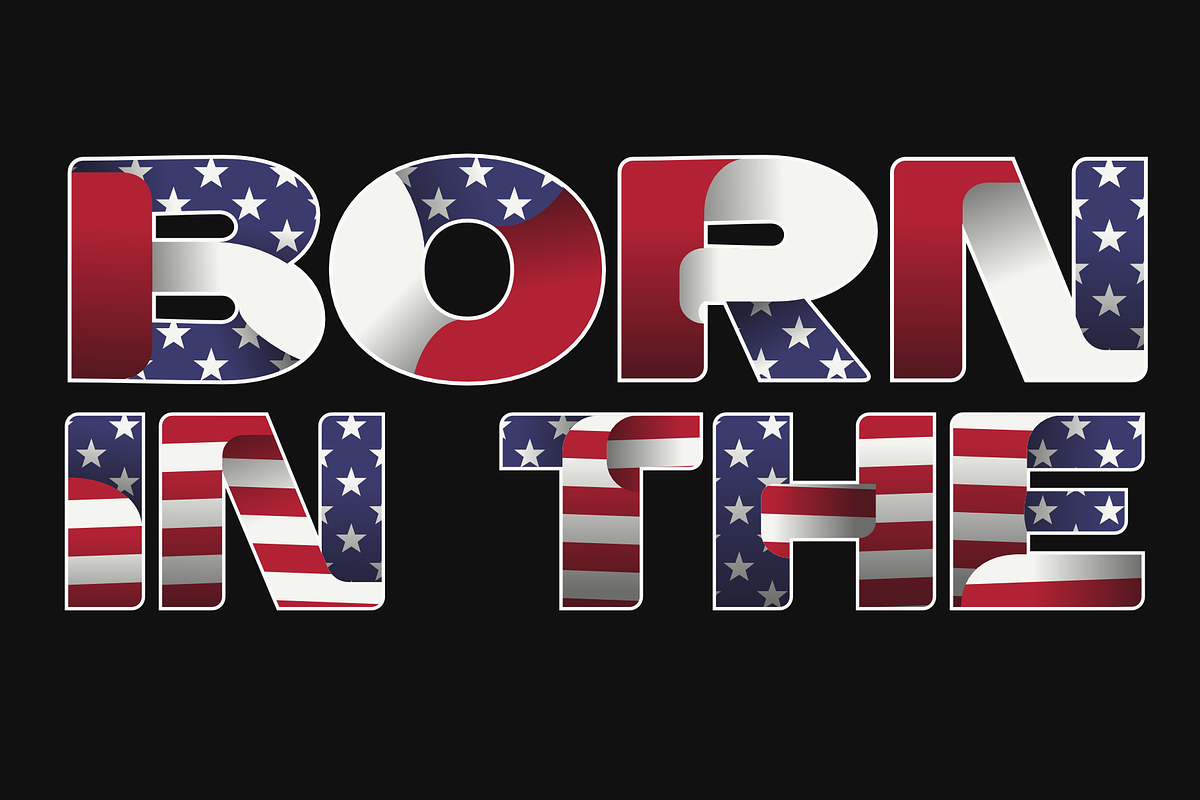
The Color Fonts ResotFlags Free Download is a vibrant and bold typeface designed to add color and creativity to your designs. This unique color font allows you to incorporate vivid, multi-colored letters that will make your text stand out in any project. Perfect for posters, branding, social media graphics, and event promotions, ResotFlags offers a fresh, dynamic look that will grab attention and enhance your visual content.
Color Fonts ResotFlags Free Download is ideal for designers who want to infuse their work with a playful and energetic vibe. Whether you're designing for an event, brand, or personal project, this colorful font will add a touch of fun and excitement. Download it today and give your designs a pop of color and personality!